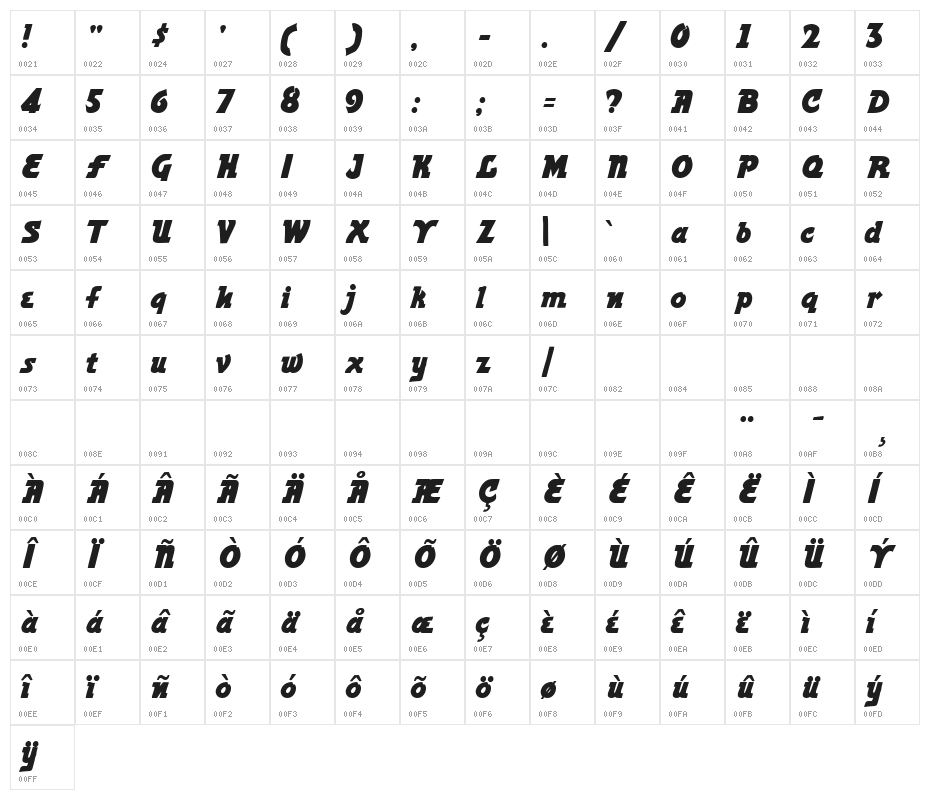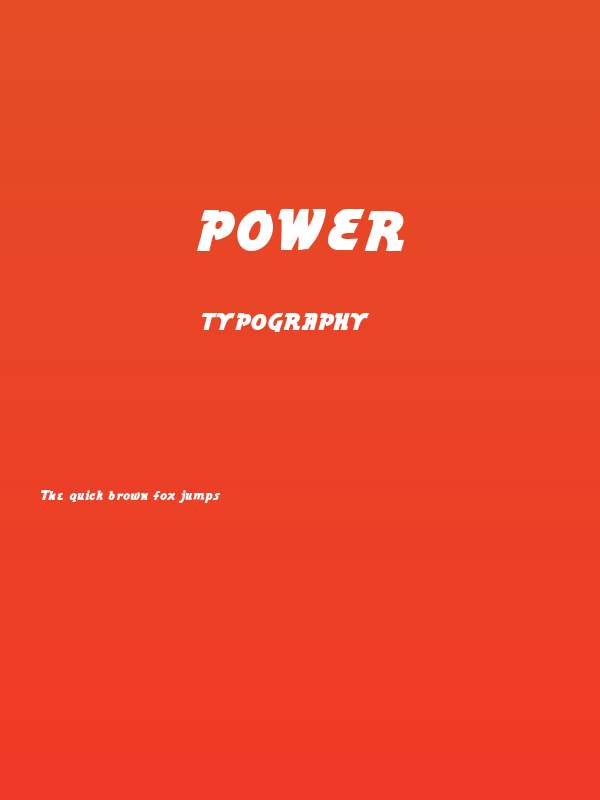
Power Font
Power Description
This bold and dynamic font features a strong, impactful design with a slight slant, giving it a sense of motion and energy. The characters are thick and robust, with sharp angles and a distinct geometric style. The uppercase and lowercase letters maintain a consistent weight, creating a cohesive look. The numbers and special characters follow the same bold aesthetic, ensuring uniformity across all text elements. This font's unique style makes it stand out, ideal for attention-grabbing designs.
Proposed ProjectsIdeal for sports branding, dynamic posters, and eye-catching headlines.